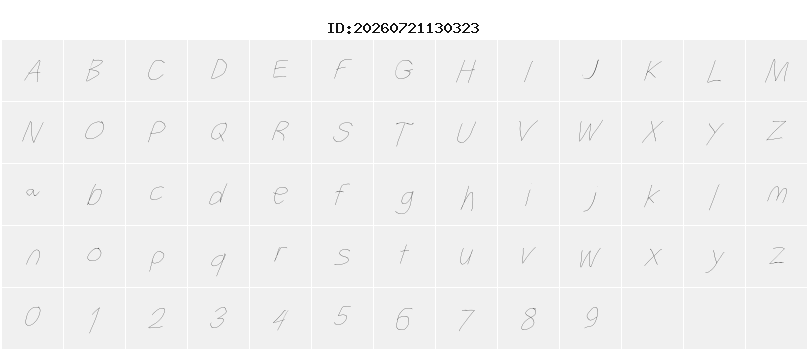
• Font Name: Filament Serie
• Font Style: Three
• Font ID: Filament Serie Three-Seven Version 1.111
• Full Font Name: Filament Serie Three-Seven
• Version: Version 1.111
• PostScript Name: FilamentThreeSeven
About Filament Serie.otf
Filament Serie.otf is a modern, elegant sans-serif font designed for ultimate readability and visual harmony. Perfect for branding, headlines, web design, and print materials.